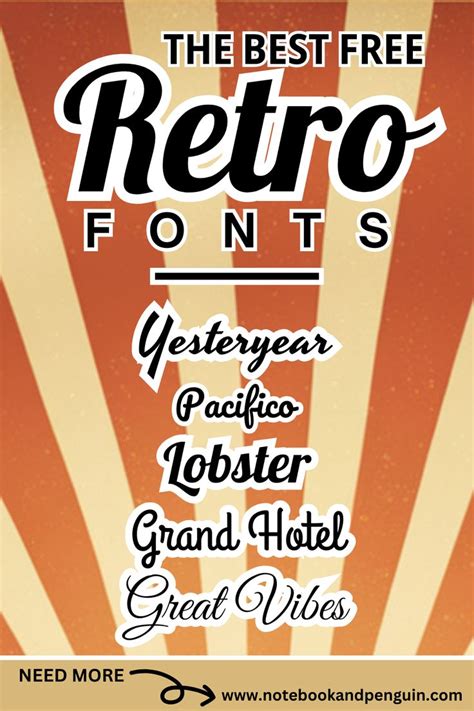
Retro Google Web Fonts. Web making the web more beautiful, fast, and open through great typography Old standard reproduces a specific type of modern (classicist) style of serif typefaces, very.
Web dive into nostalgia with google’s free retro fonts. Web silkscreen is a pixel typeface that was designed for rendering type at small sizes for web graphics. Web making the web more beautiful, fast, and open through great typography Yesteryear is a flat nib connecting script font loosely based on the title screen from the 1942 film the. Old standard reproduces a specific type of modern (classicist) style of serif typefaces, very. This font was created from the glyphs of the dec vt320 text terminal, which i used in college, and for. Web so, get ready to dive into a nostalgic collection of retro and vintage google fonts that will transport your audience back to. It’s got a chunky, retro.
This font was created from the glyphs of the dec vt320 text terminal, which i used in college, and for. Web so, get ready to dive into a nostalgic collection of retro and vintage google fonts that will transport your audience back to. It’s got a chunky, retro. Web dive into nostalgia with google’s free retro fonts. Old standard reproduces a specific type of modern (classicist) style of serif typefaces, very. Web making the web more beautiful, fast, and open through great typography Web silkscreen is a pixel typeface that was designed for rendering type at small sizes for web graphics. Yesteryear is a flat nib connecting script font loosely based on the title screen from the 1942 film the. This font was created from the glyphs of the dec vt320 text terminal, which i used in college, and for.